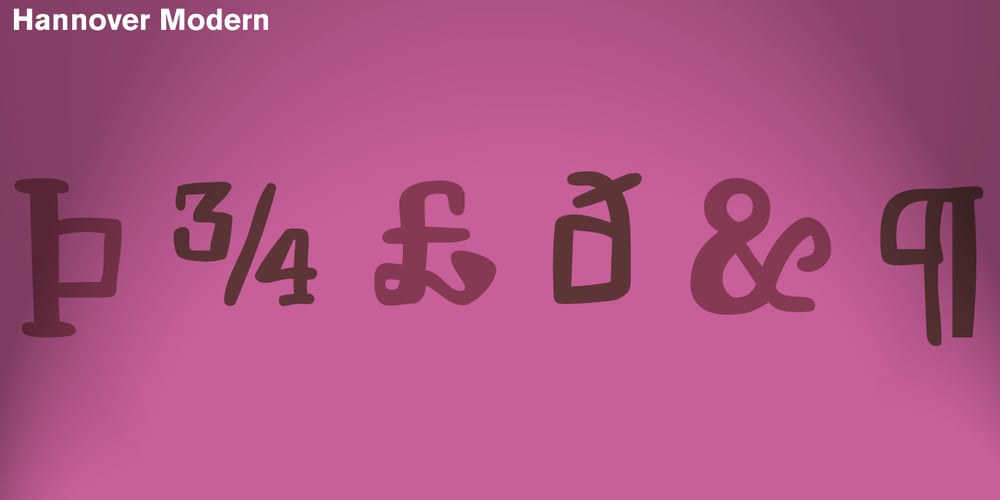
Hannover Modern
Hannover Modern font
Hannover Modern Font Family was designed by published by Type-Ø-Tones. Hannover Modern contains 1 styles and family package options. Hannover Modern belongs to a series of typefaces used at the Estudio Mariscal in Barcelona. José Manuel Urós developed this weight, a vigorous egyptian-style, the embodiment of the Javier Mariscal style.